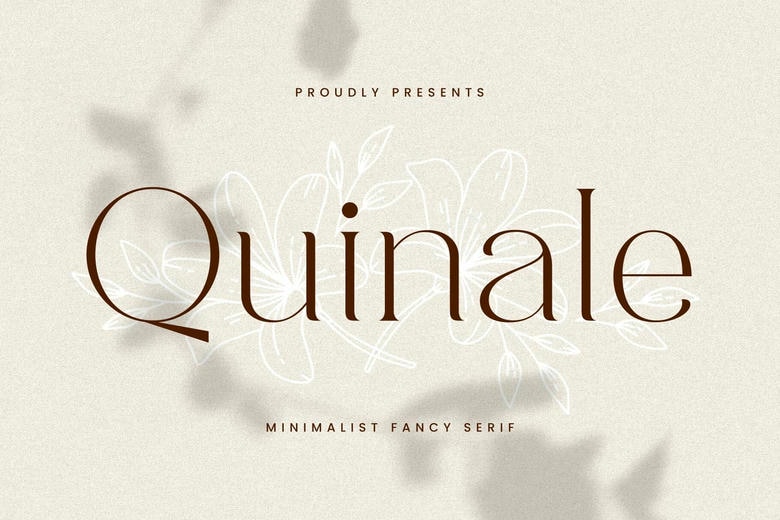
Quinale Font
Quinale is a clean and rebellious serif font intending to add a touch of class to your artistic works. It is understated with finely drawn letters and swashes, making it perfect for exclusive corporate image, fashion or minimalist design.
Every time you create something – be it the magnificent logo or the invitation to the wedding, or any other piece that must be elegant – Quinale is your worth for chic and dramatic experience of feminization. They apply it to different products such as clothing and fashion products promotion, cards, labels and the like.
Quinale Serif Font